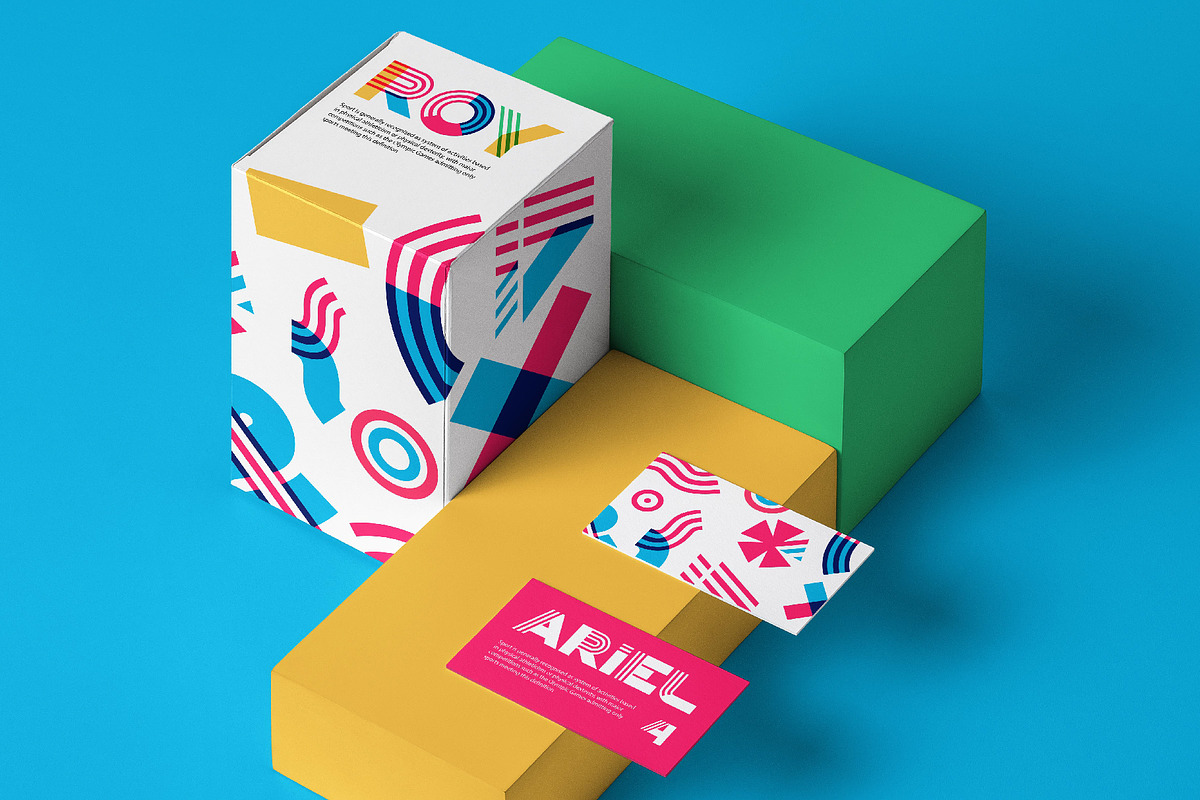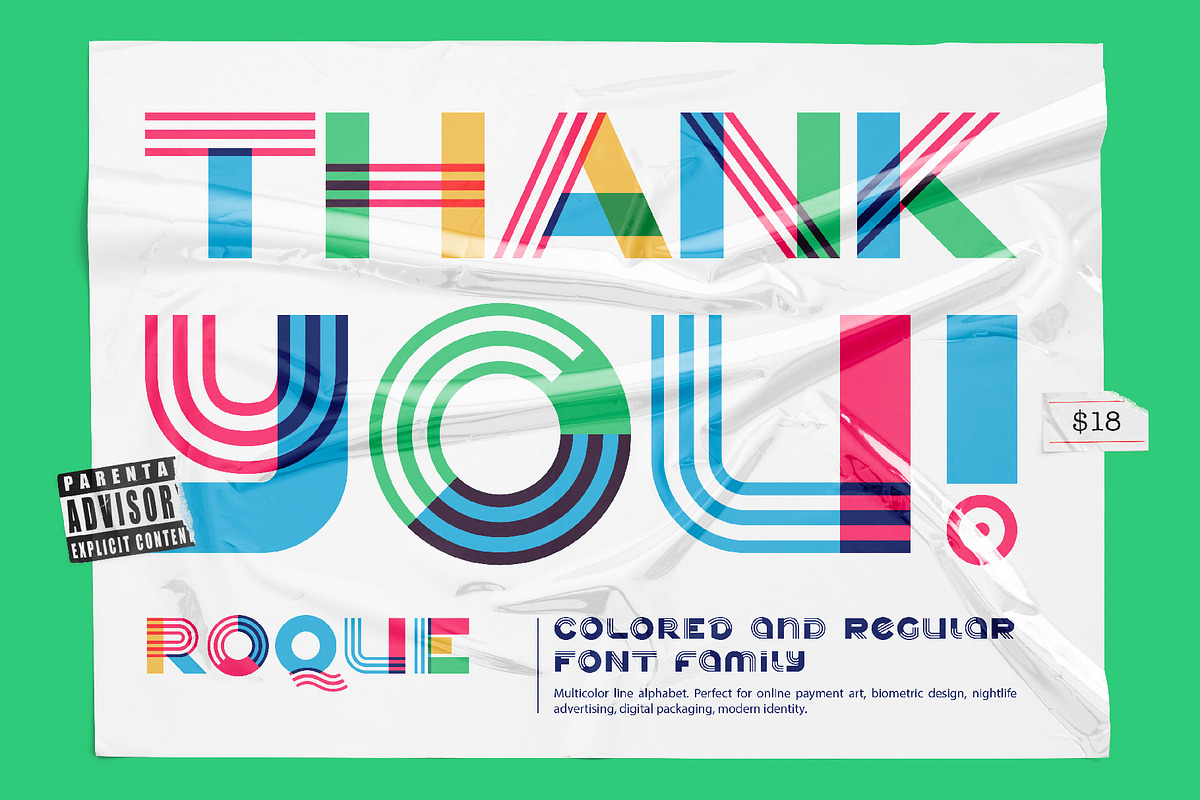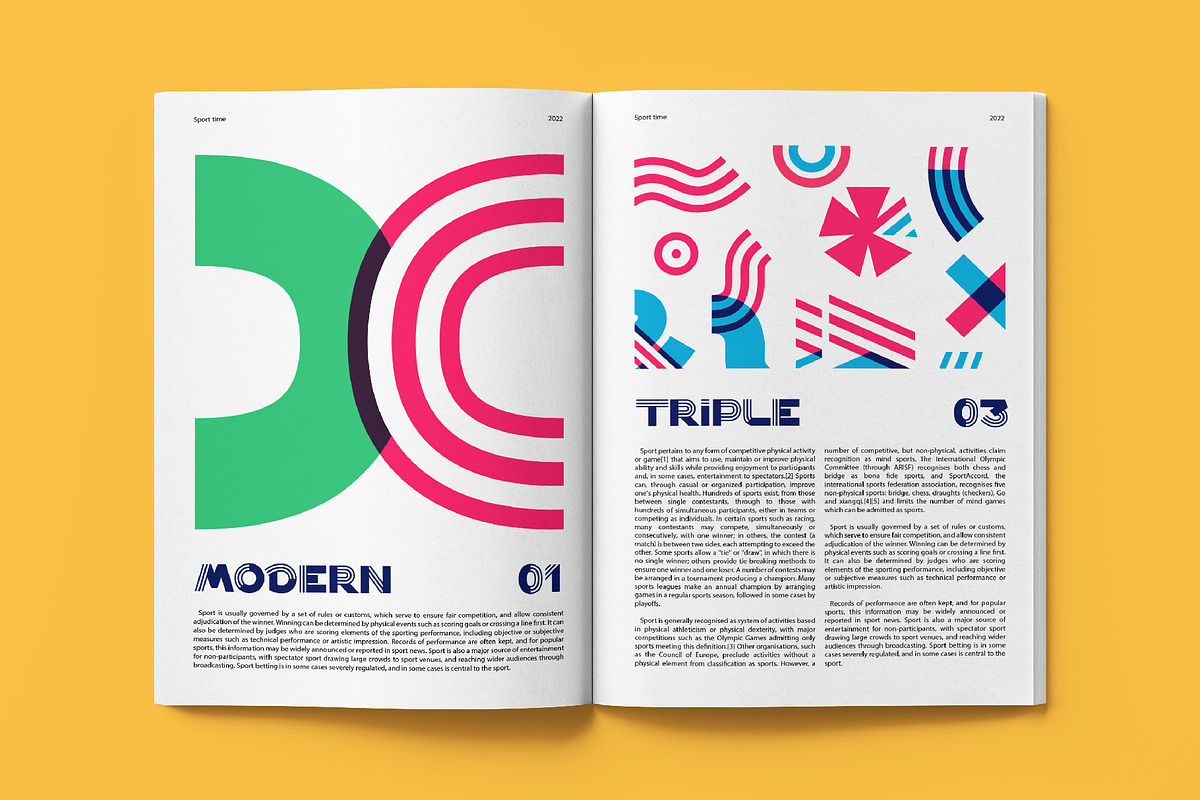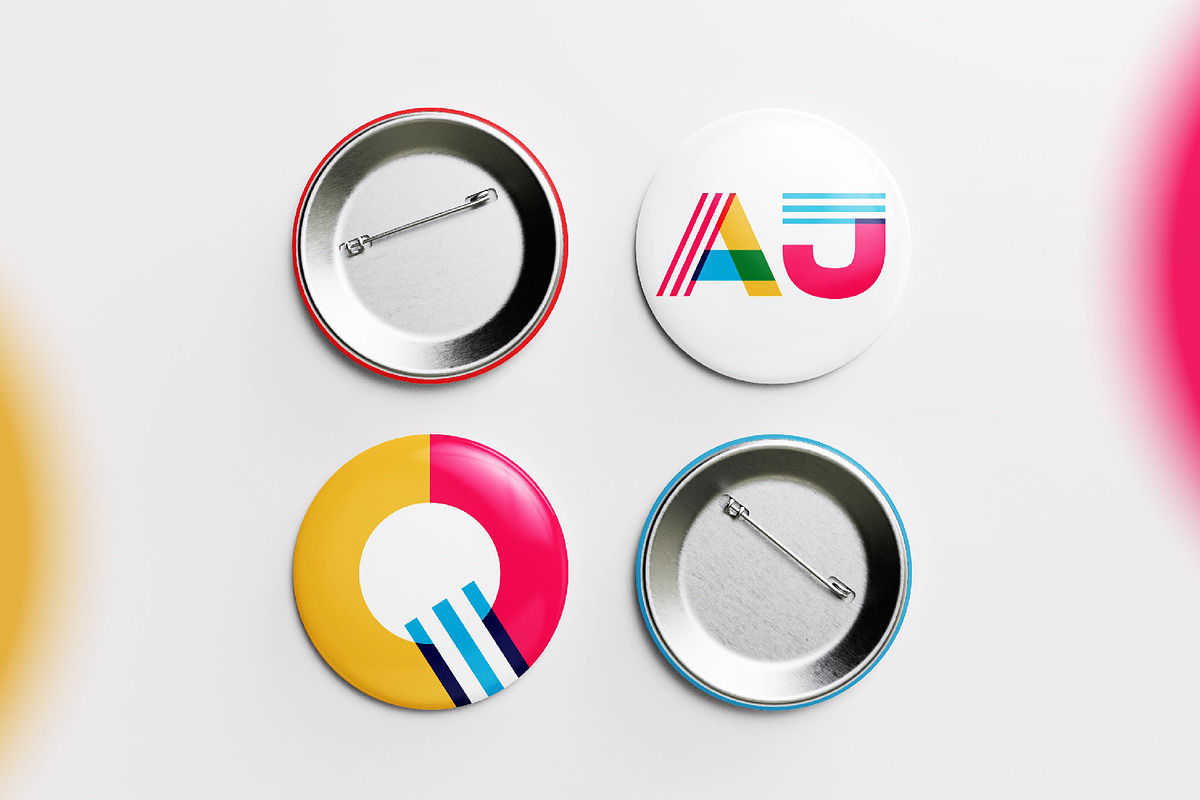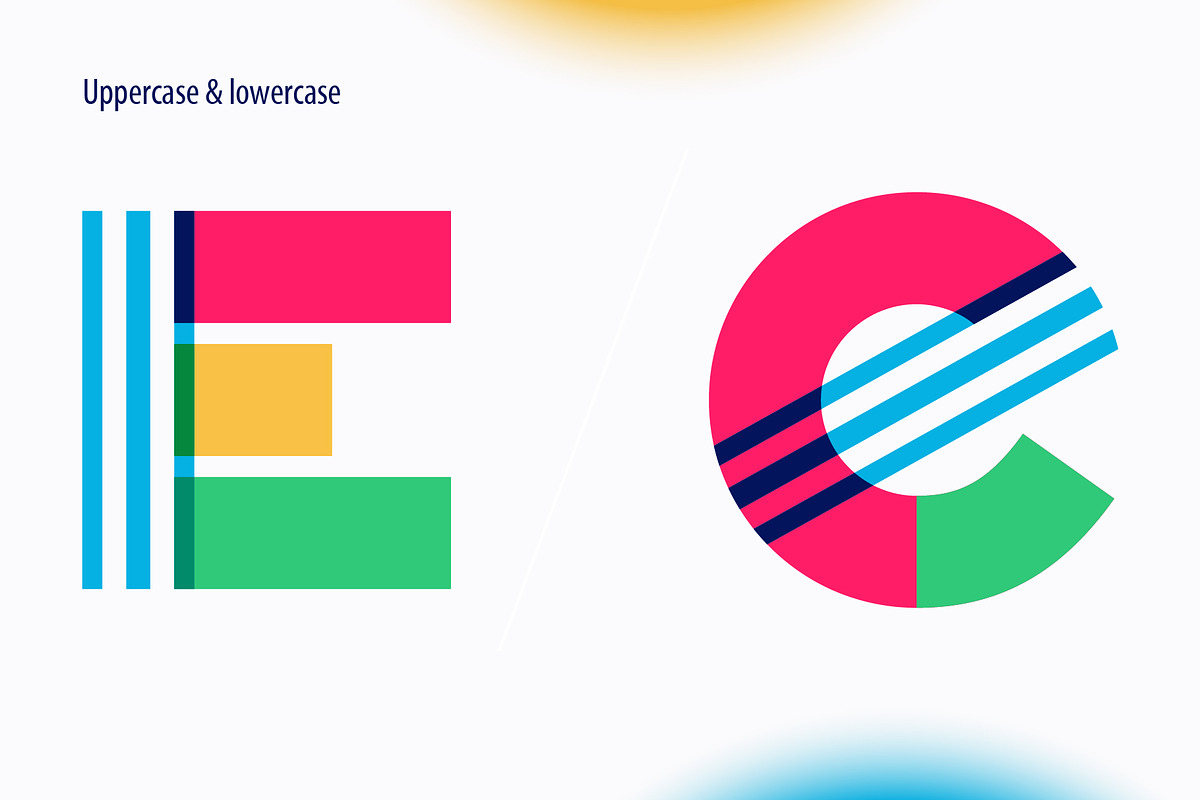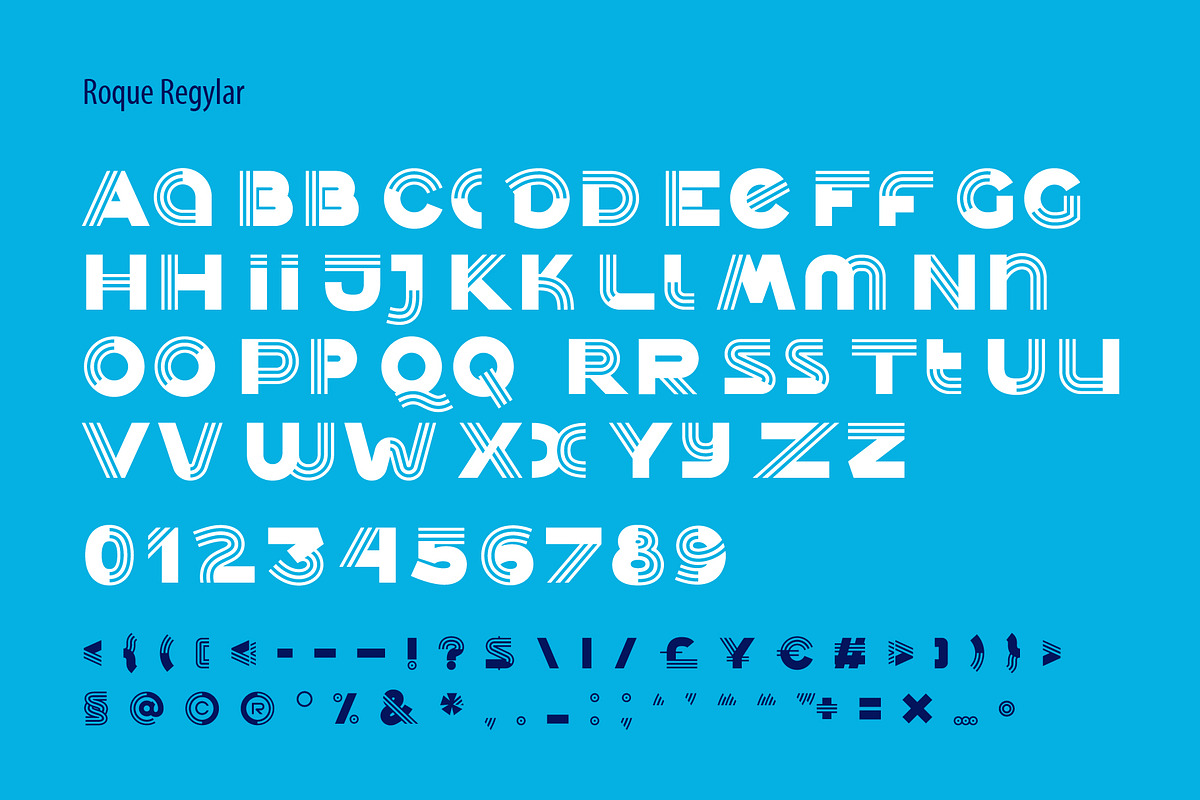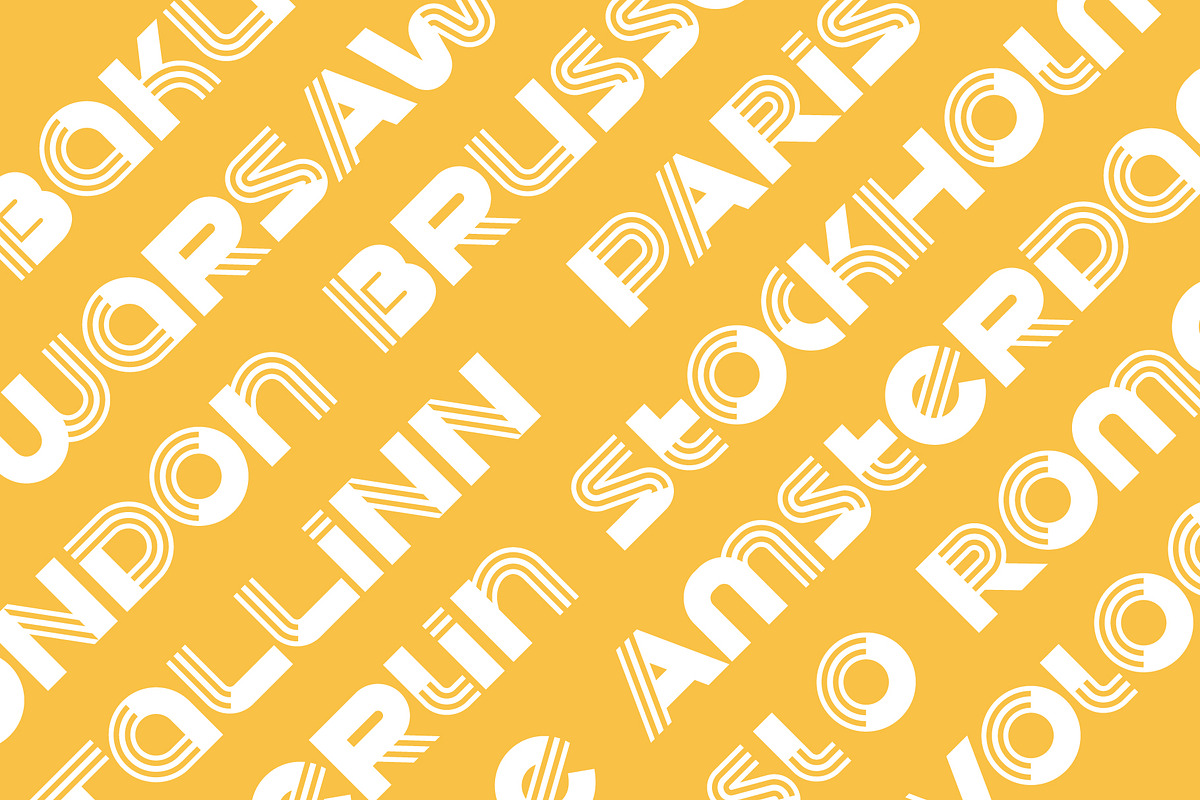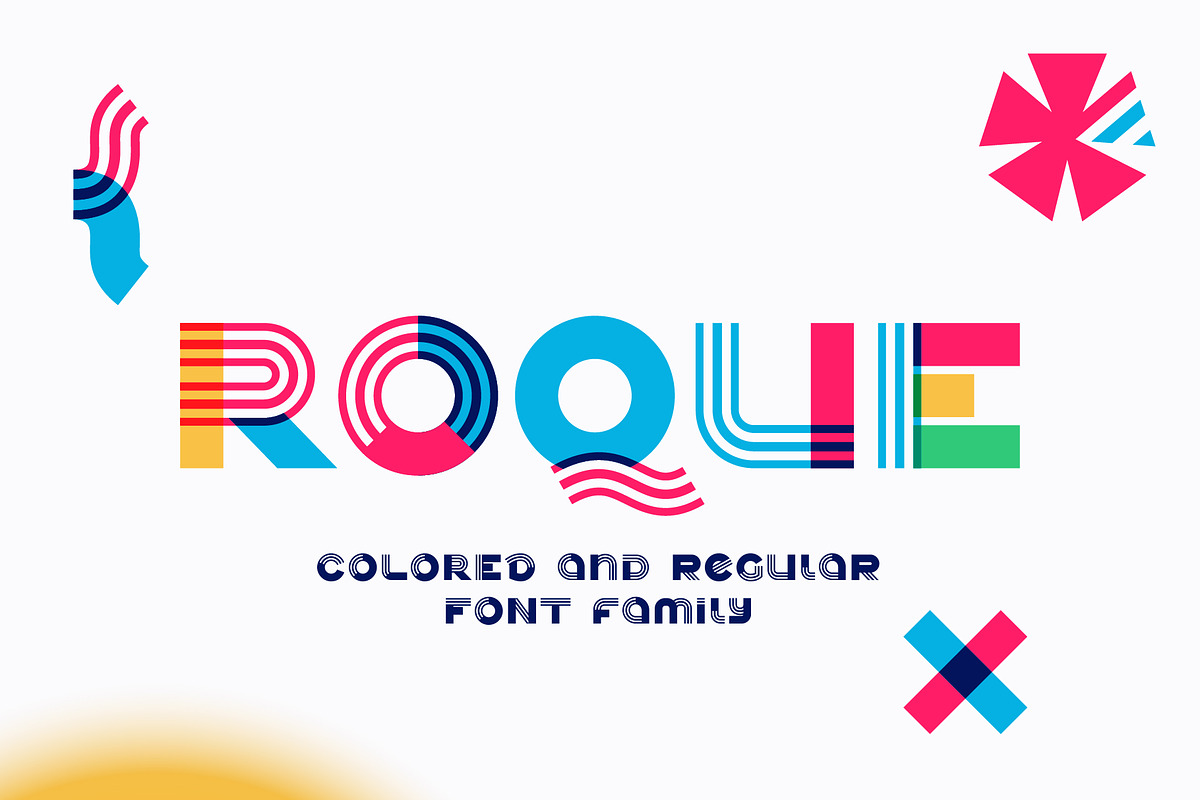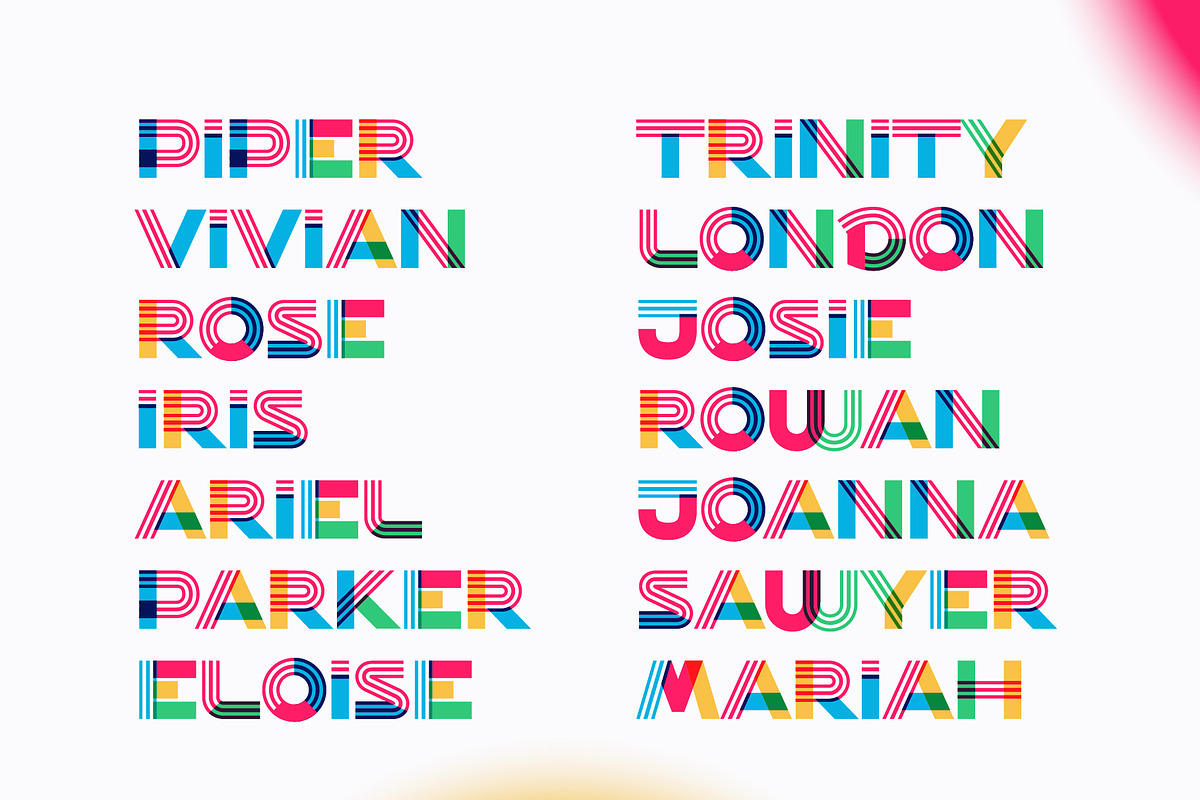
Roque color font
Hey, friends! I’m here for you with my new colored font Roque. All the letters in this font are colored brightly and vividly with colors overlay. You can use it in your corporate identity, in magazines, posters, clothes design, and others.
- Colored and regular B&W styles